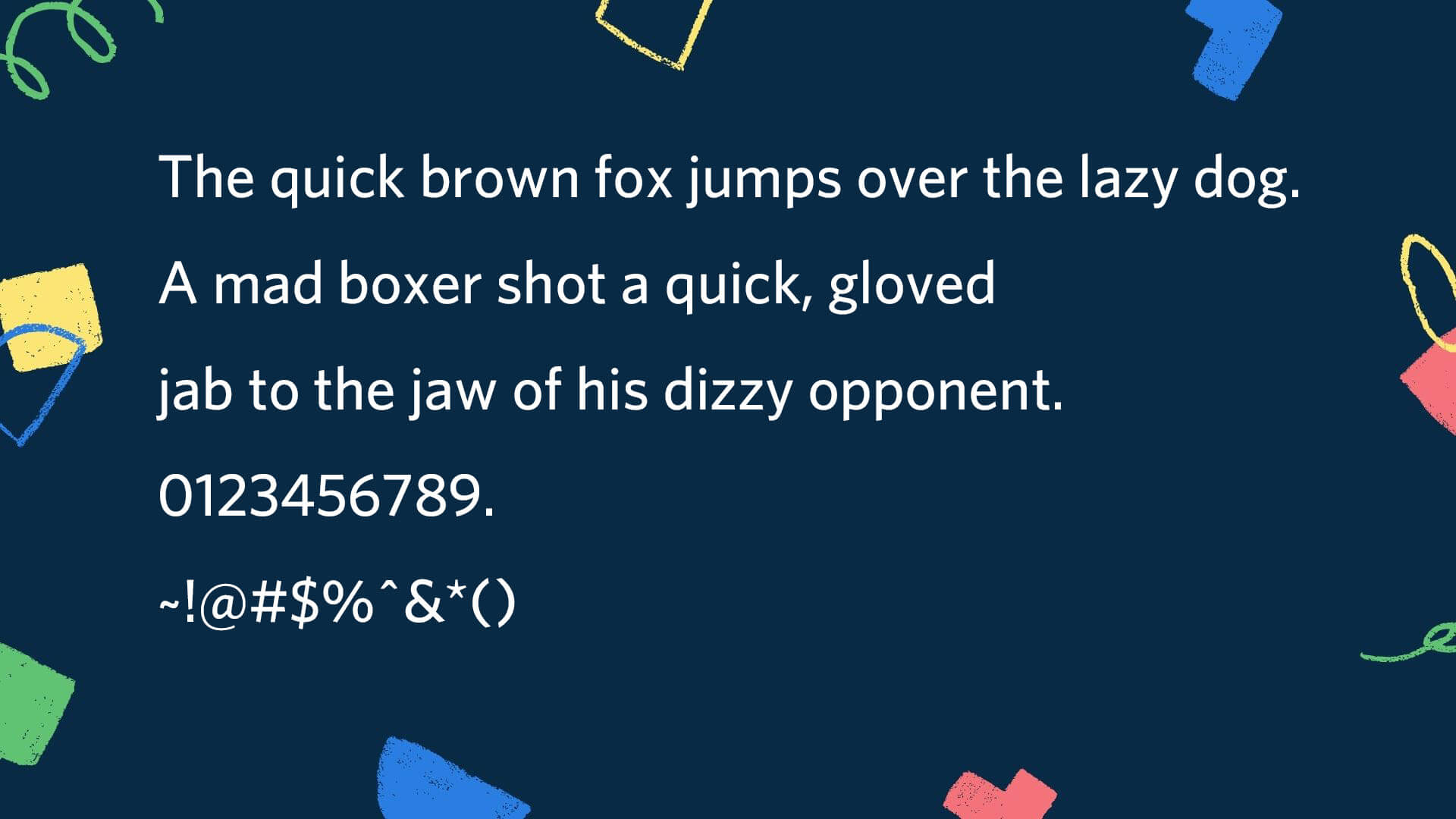
Whitney Font is a humanist digital typeface that belongs to the largest Sans-serif typeface category. Designed by renowned designer Tobias Frere-Jones, this font was released in 2004 by H&FJ. Originally created for New York’s Whitney Museum, it has since been embraced by some well-known brands for various design and textual purposes.
This font family has massive language support, up to 200 international languages. That’s why it became the ideal and high-used typeface among the world’s designers and brands.
This font has an outstanding and glorious look that leaves a personal and humanizes touch to your text and designs.